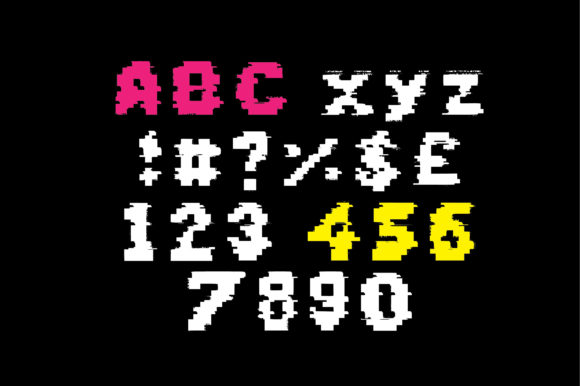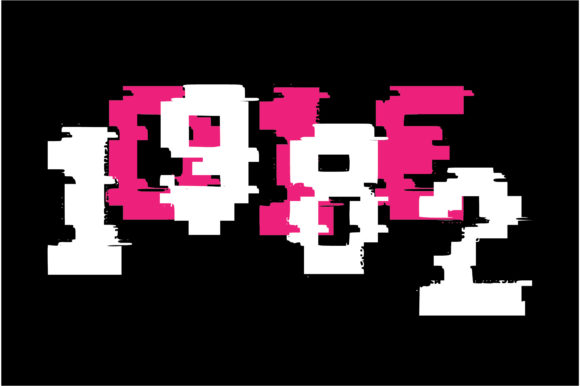
Get Ready to Shake Up Your Designs with Big Glitch Font
Have you ever stared at a blank canvas, waiting for that perfect spark of creativity to strike? It’s a feeling we’ve all been there, where the only thing missing is that one special element to bring our ideas to life. That’s where the Big Glitch Font comes in – a bold, pixelated display font that’s guaranteed to add a touch of edginess to your designs.
Big Glitch Font is the perfect tool for designers looking to add a unique twist to their work. Its thick, distorted letters are sure to make a statement, and with its trendy vibe, it’s the perfect fit for anything from graphic tees to social media graphics. Whether you’re a seasoned pro or just starting out, Big Glitch Font is a valuable addition to any designer’s toolkit, offering endless possibilities for creativity and self-expression.
Big Glitch Font Key Features
- Unique Characteristics: The font’s distinctive glitch art style, featuring distorted and fragmented characters, adds a touch of edginess and visual interest to any design.
- Font Weight: The font comes in regular and bold weights, allowing designers to choose the perfect level of emphasis for their design.
Big Glitch Font Review
Overall, I’d say the Big Glitch Font is a visually striking choice for any design project. The font’s unique glitch aesthetic is sure to grab attention and add a touch of edginess to your work. ✨ The font’s bold and chunky design elements make it perfect for use in headings and titles, where you want to emphasize a point or create a sense of drama.
One of the things I appreciate about Big Glitch is its versatility. It’s available in a range of weights, from light to bold, which makes it easy to use in a variety of contexts. ✨ The font also includes a range of alternate characters and glyphs, which can be used to add even more visual interest to your designs.
- ⚠️ Limited legibility at small font sizes: While Big Glitch looks great at larger font sizes, it can be difficult to read at smaller sizes due to its chunky design.
- ⚠️ May not be suitable for body text: Due to its bold and dramatic design, Big Glitch may not be the best choice for body text or long blocks of text.
Overall, I think Big Glitch is a great choice for designers who want to add a touch of personality and whimsy to their work. While it may have some limitations, its unique aesthetic and versatility make it a great option for a wide range of design projects.
Tips for Getting the Most Out of Big Glitch Font
Use Big Glitch Font to add a touch of edginess to your designs. Pair it with bold colors and geometric shapes to create a futuristic look. Experiment with different font sizes and styles to create visual interest. Use Big Glitch Font to add emphasis to key messages or headlines.
Big Glitch Font is perfect for designs that require a futuristic or tech-inspired look. Use it for:
– Gaming and esports branding
– Tech startup logos and marketing materials
– Futuristic-themed event invitations and graphics
– Sci-fi and cyberpunk-inspired artwork